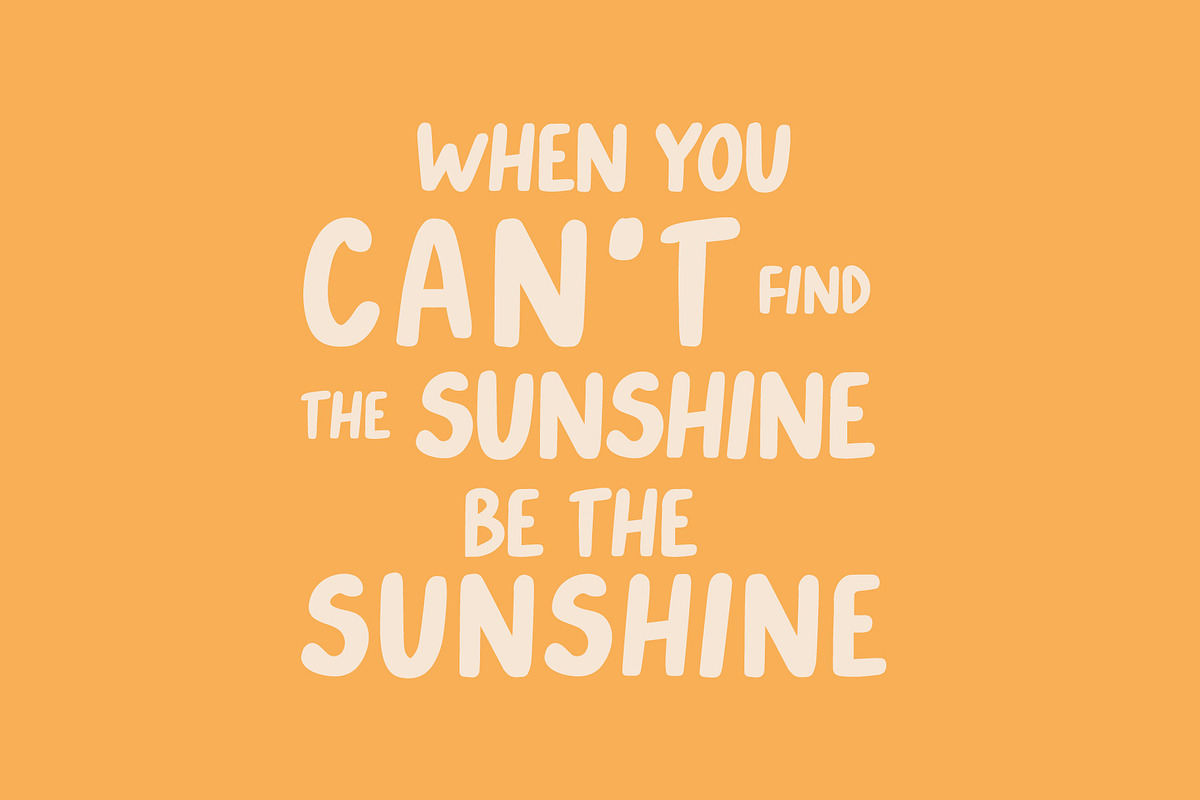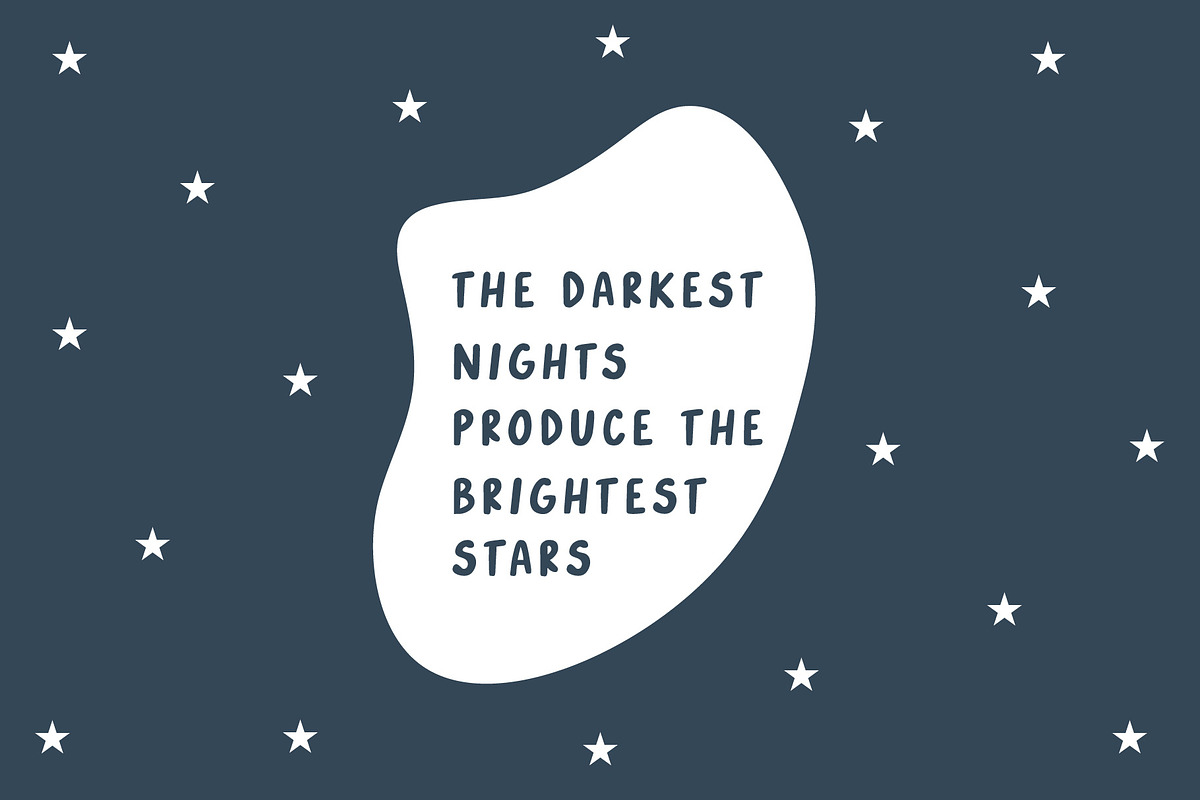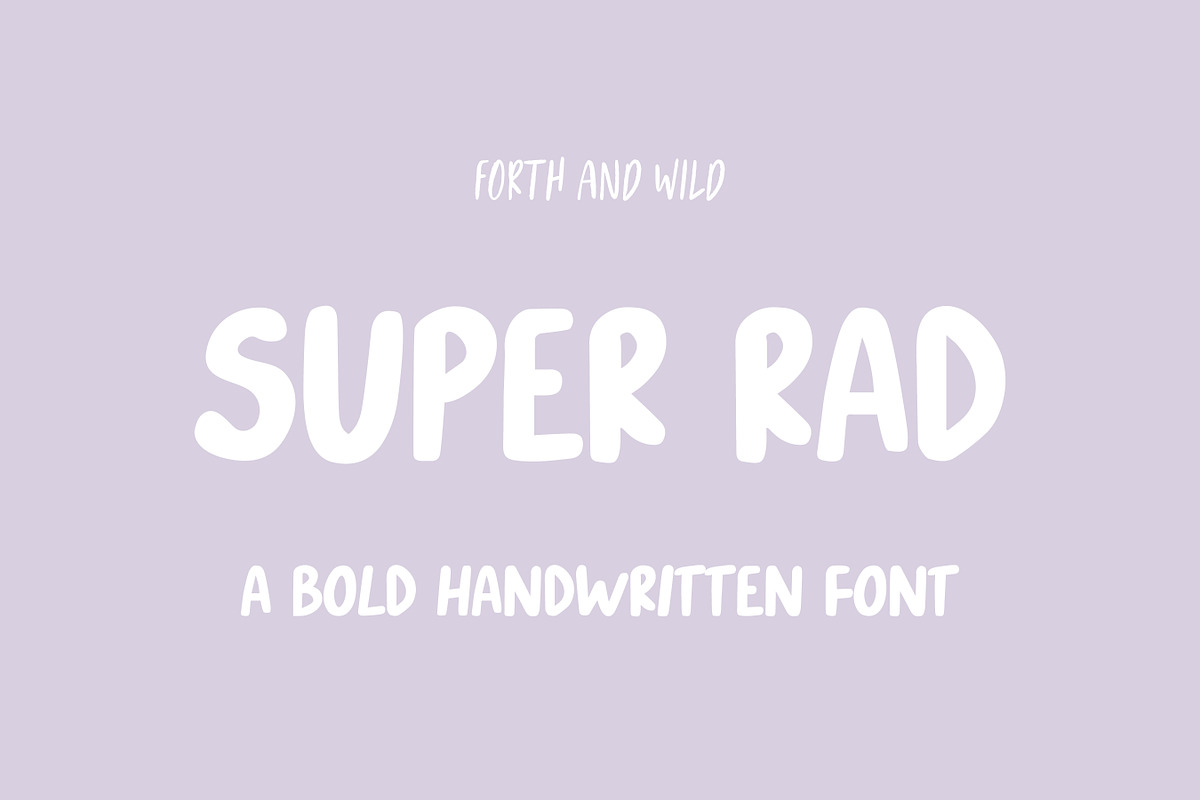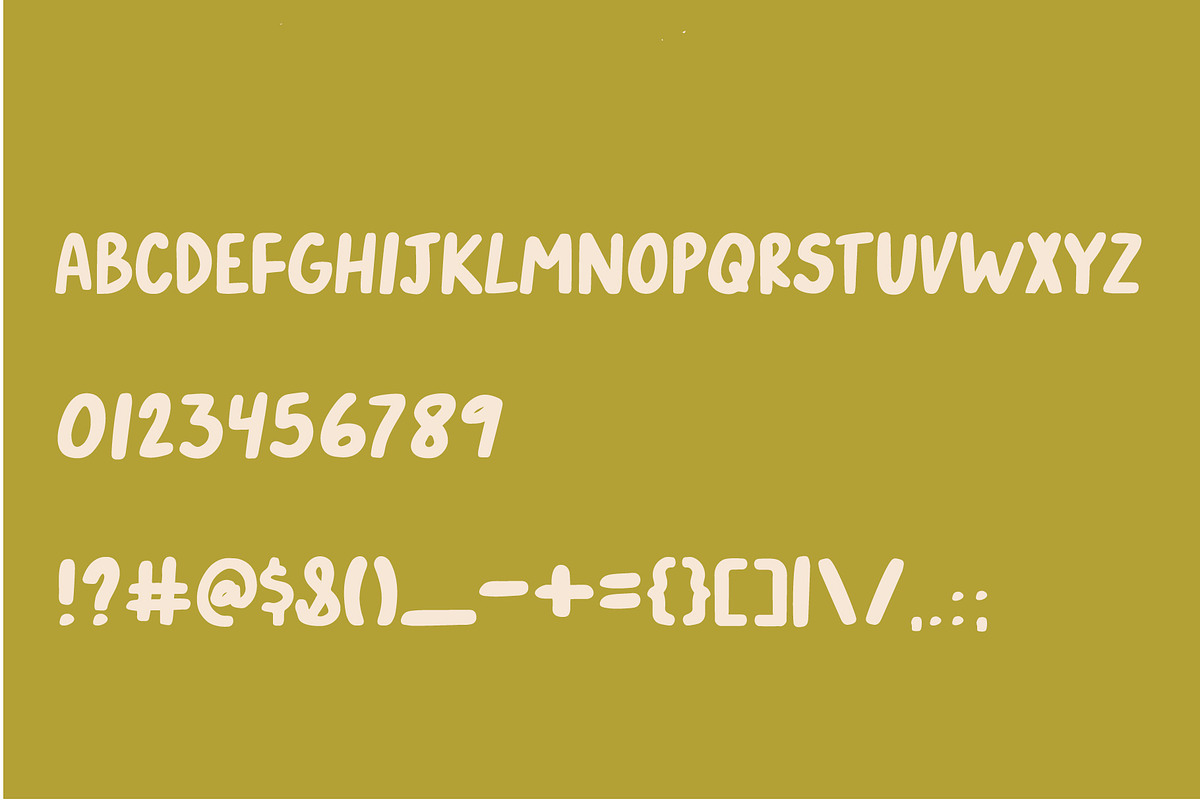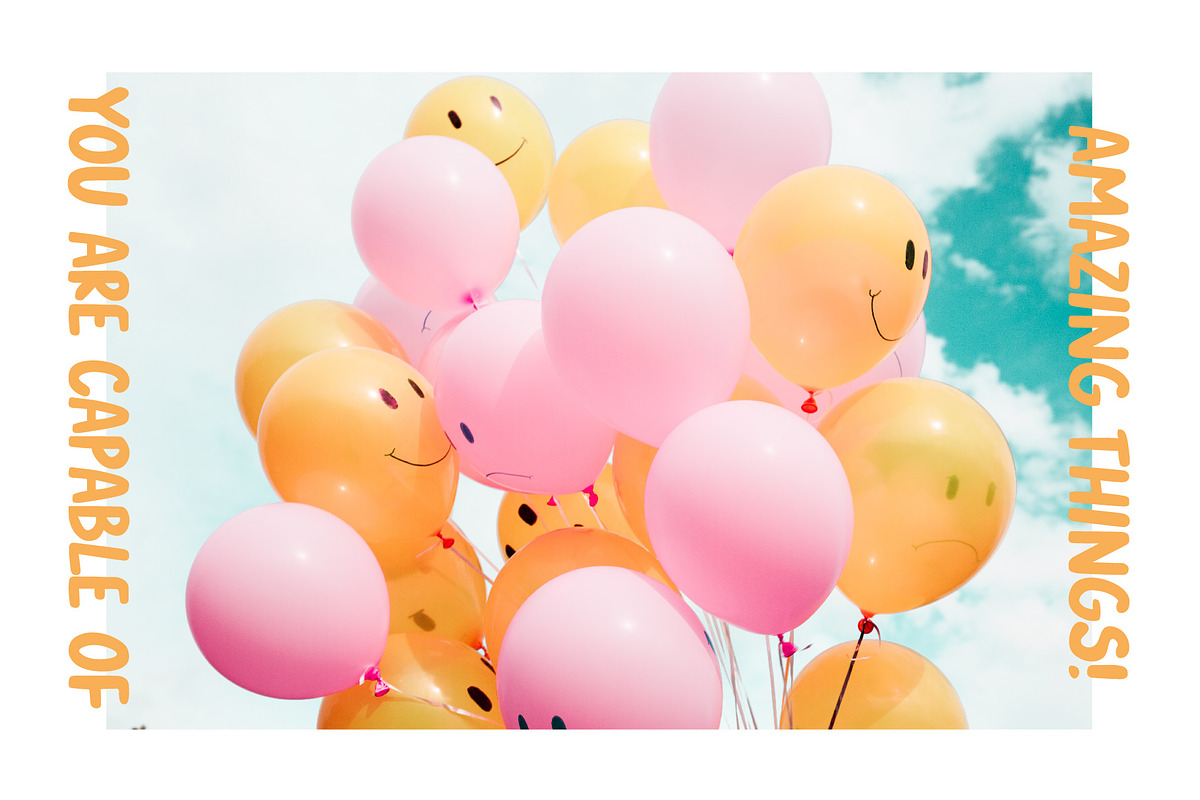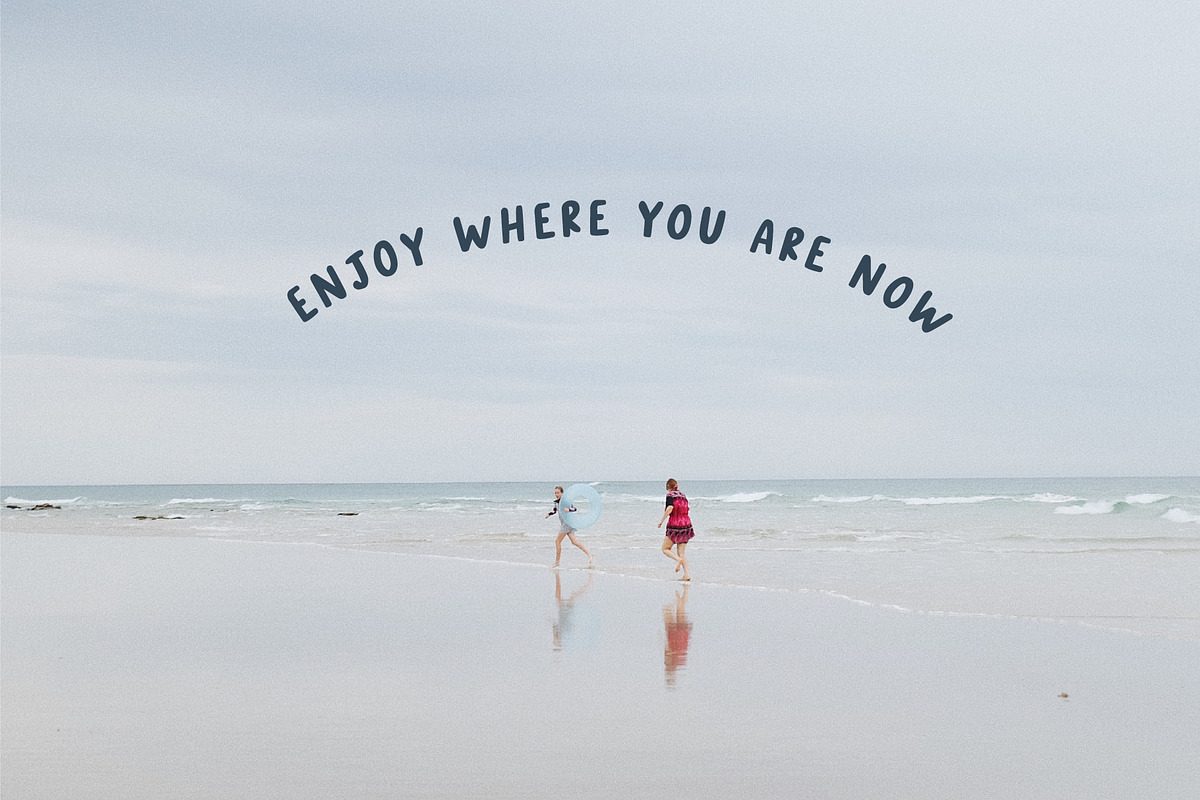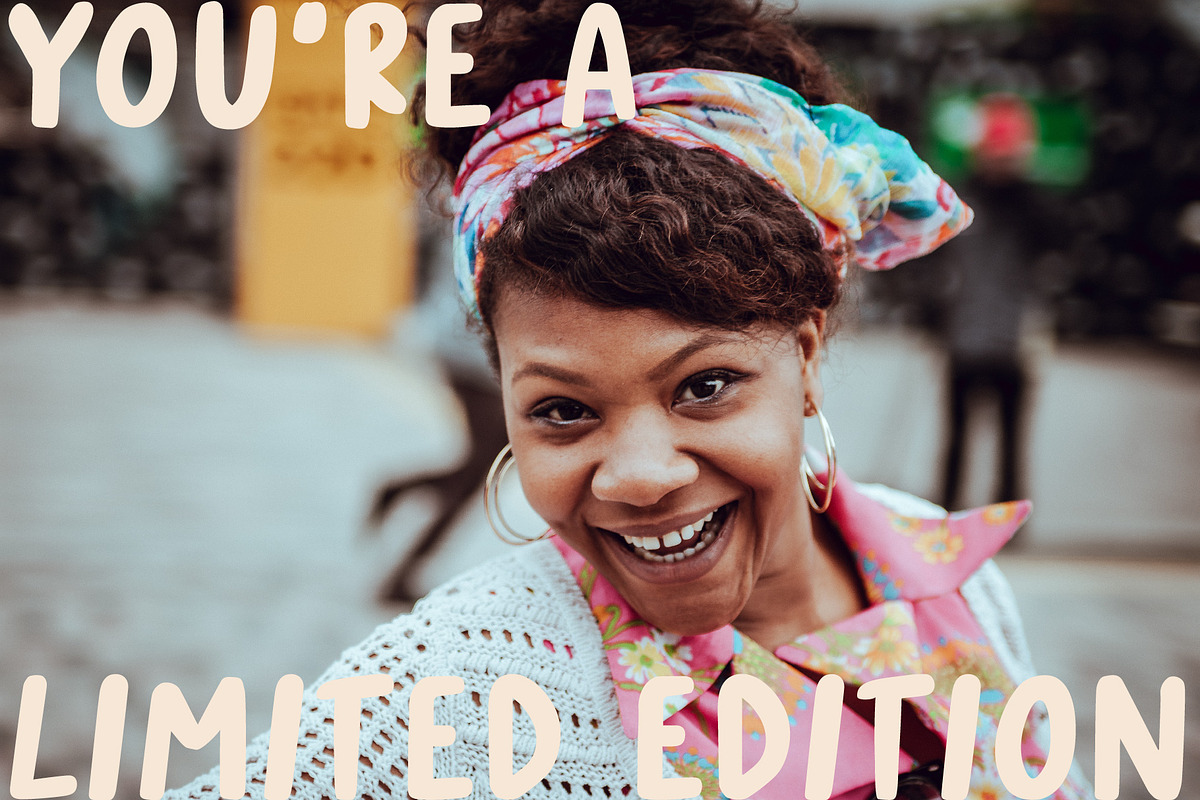
Modern Bold Handwritten Font
Super Rad is a bold handwritten UPPERCASE display font perfect for adding a personal touch to your next project. Super Rad display font works great for creating logos, quotes to share on Instagram, social media, and more!